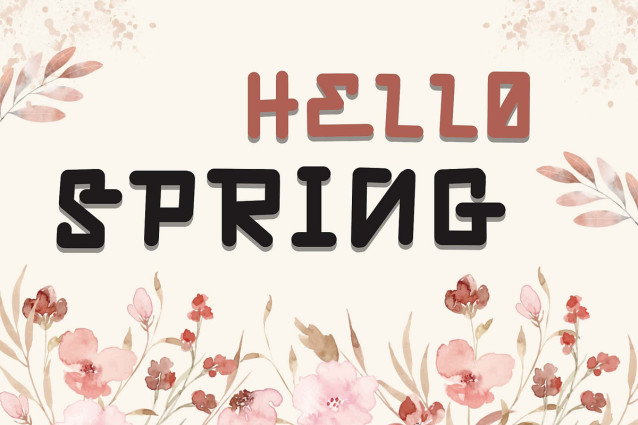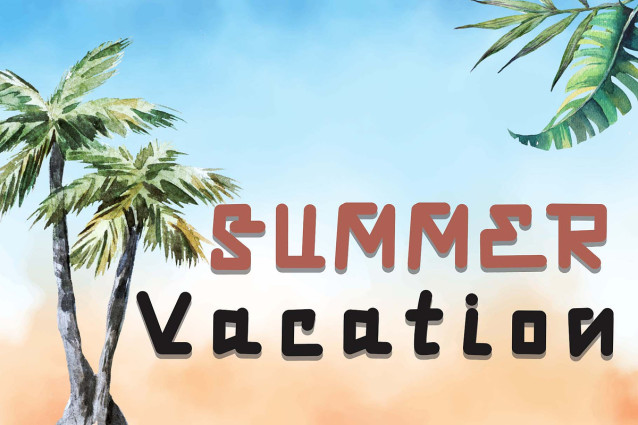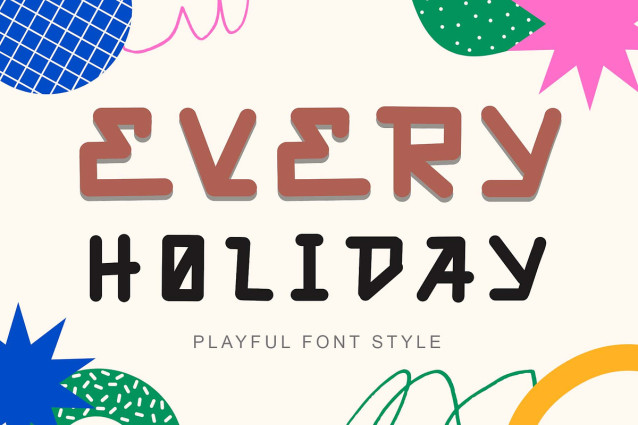
Every Holiday Font
Every Holiday Font is a unique and elegant display font. This font is equipped with uppercase, lowercase, numerals, punctuations and multilingual support. It is very suitable for use for easter, summer, spring, sticker, banner, poster, print, branding, logo, vacation, invitations and others.